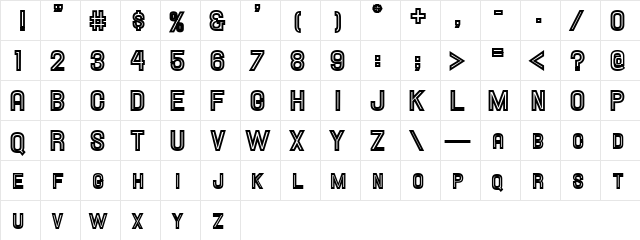
Hallandale SC Inline JL Regular
| Foundry | Jeff's Fonts & Dingbats |
| Designer | Jeffrey N. Levine |
Design Context for Hallandale SC Inline JL Typeface
Hallandale SC Inline JL is built around its visual character rather than neutral utility — its distinctive forms are designed to make an impression at display sizes.
Font Pairing: Pair with a clean neutral sans-serif for body copy to let Hallandale SC Inline JL's character lead without overwhelming the composition.